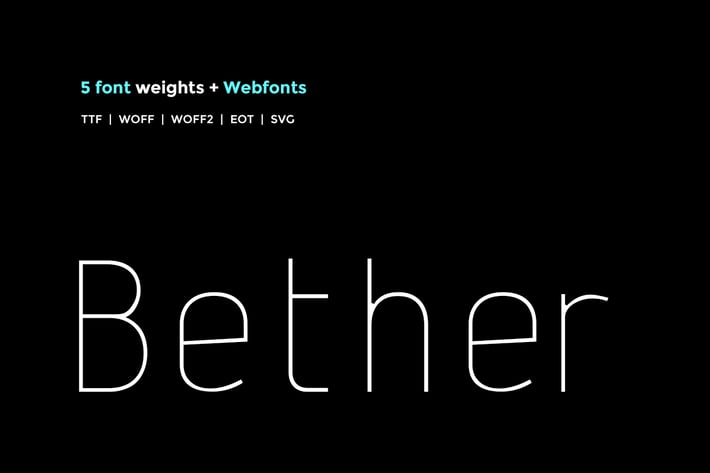
Bether Sans - WebFont with 5 weights
Bether Sans Typeface
Another modern fantastic sanserif typeface from Unbranded, which delivers a remarkable unique typography style. Bether Sans Family available in five weights, Hairline, Regular, Medium, Ultrabold and heavy weights included in the pack. The pack also includes OTF, TTF and Web Fonts (all EOT, SVG, TTF, WOFF included).